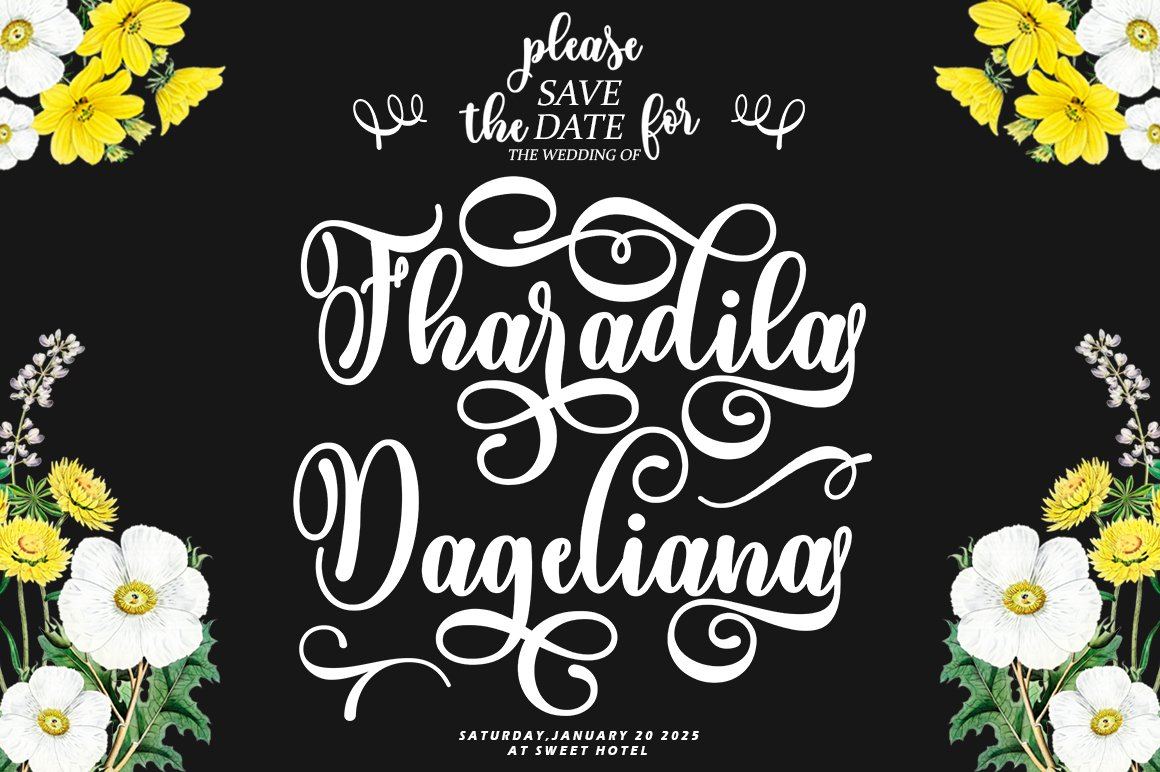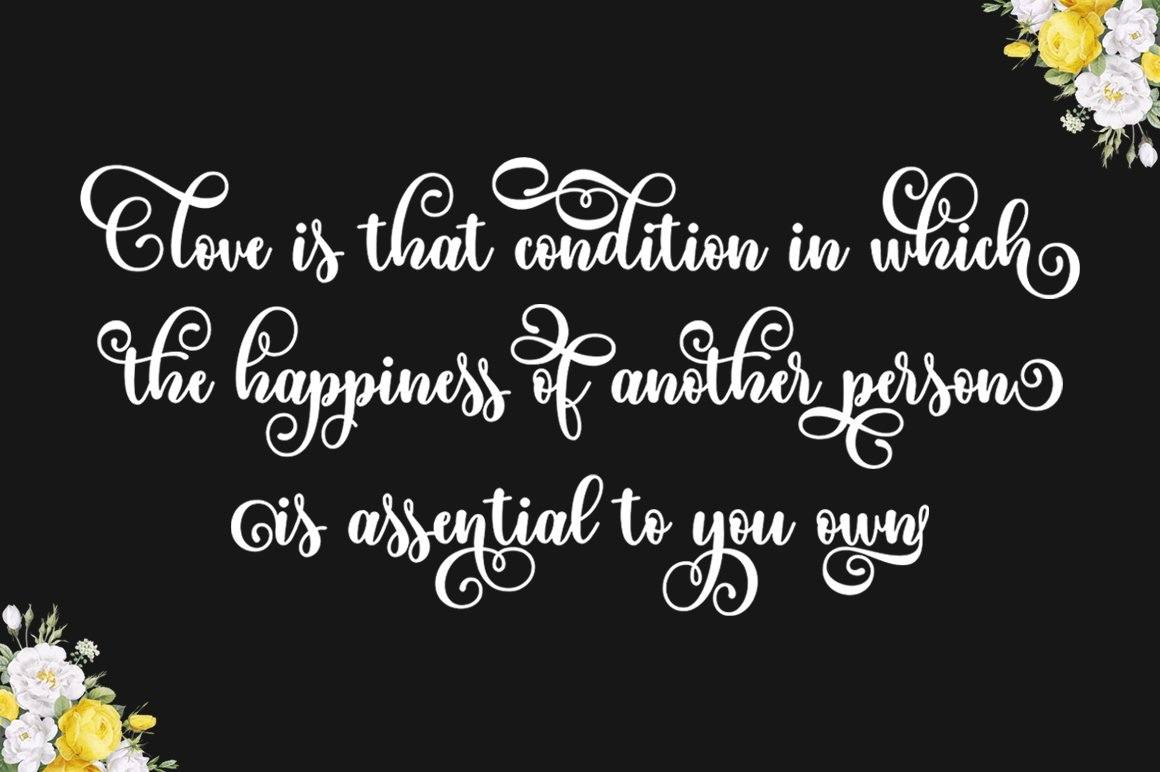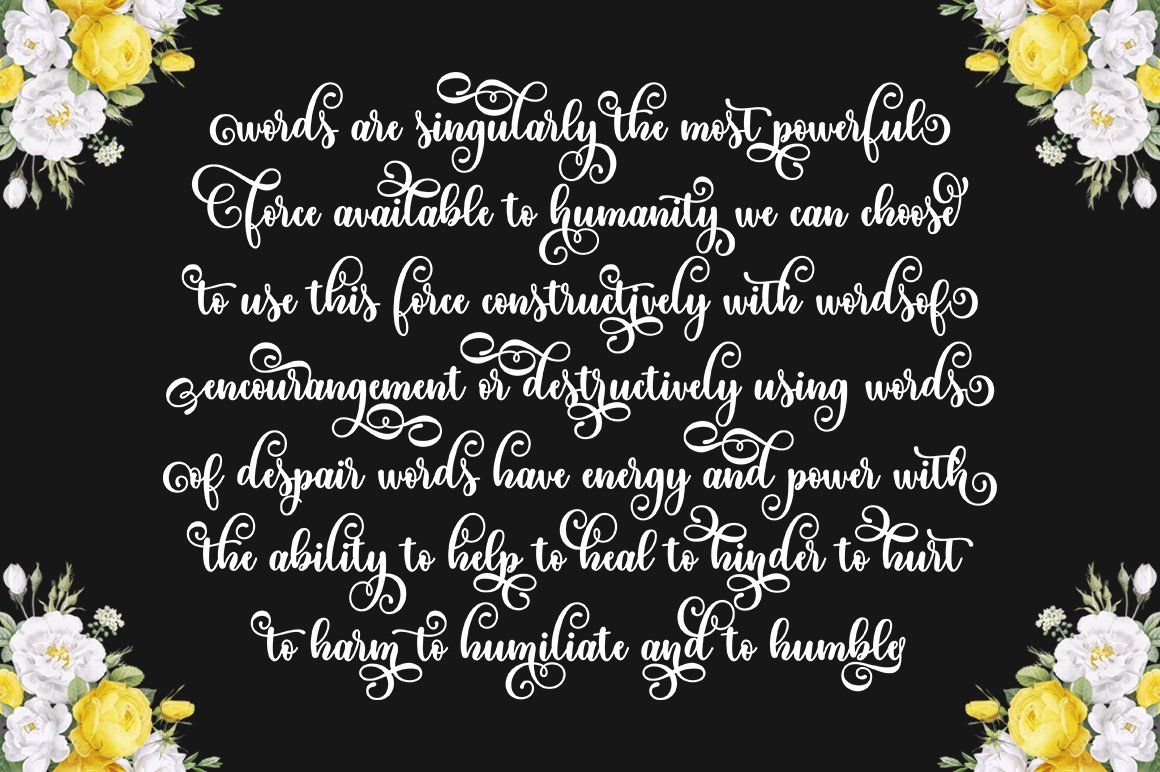
Family Holiday
About Family Holiday
Family Holiday is a smooth, elegant and flowing handwritten font. It has a beautiful and balanced character and as a result, fits into a wide set of designs. Family Holiday features varied baselines, smooth lines, beautiful glyphs, and stunning alternatives. add it to your most creative idea and watch how it comes to life!